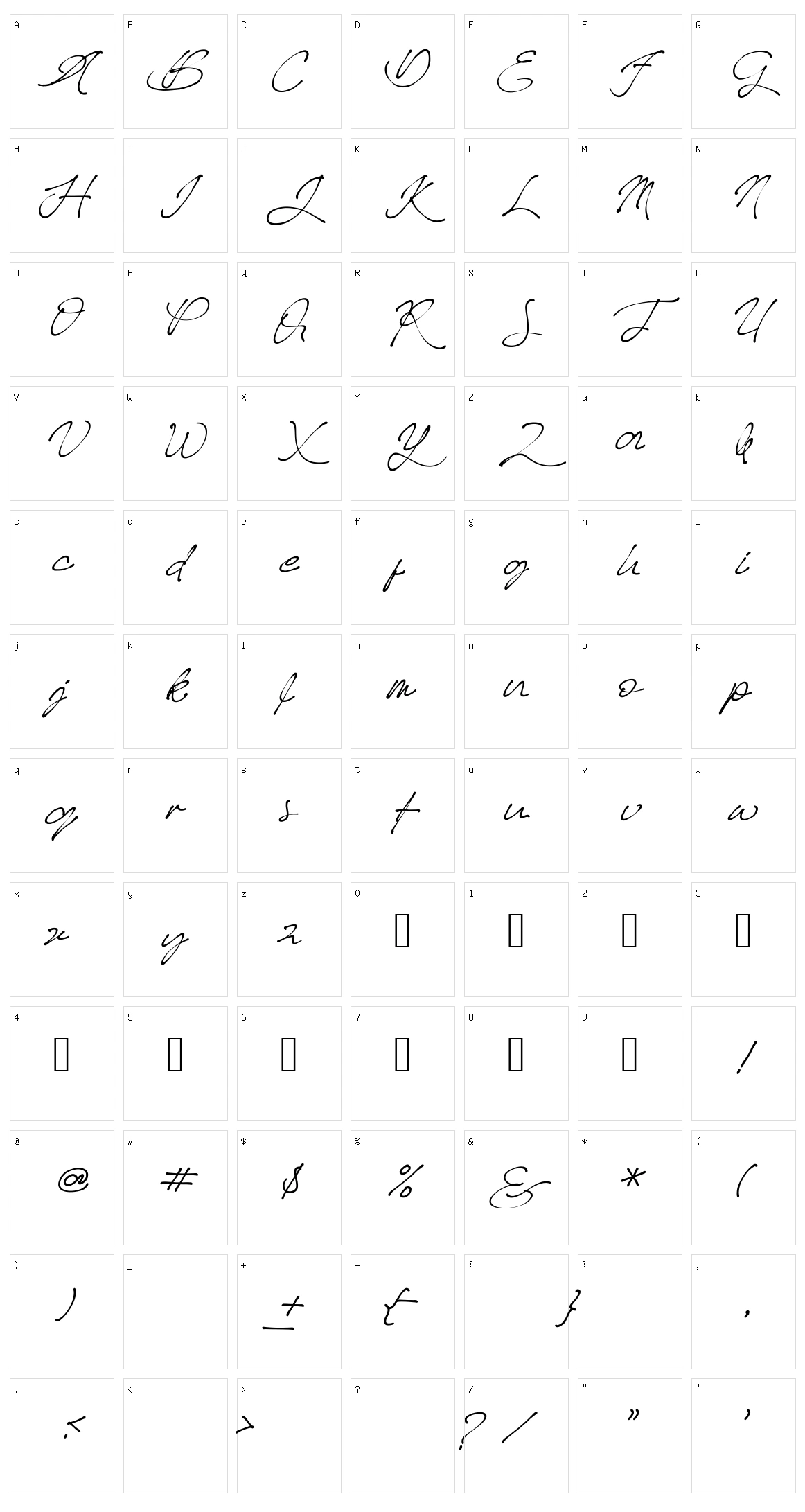
The free font Better Regards is carefully designed by SSI.Scraps, showcasing a thoughtful balance of creativity and usability and falls under the Script font style. When you download the ZIP file, it contains only 49.17 KB of font files, making it lightweight and quick to download. Please review the license details below to understand permitted usage and distribution rights. If license information is not available, we recommend using this font for personal projects only or contacting the author directly for commercial usage permissions.